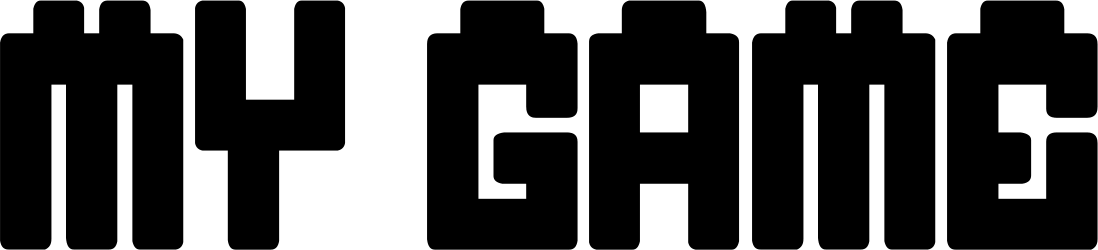
My Game Font
Showcase your typography with a cute arcade font that adds a retro plus confusing feel. My Game has awesome bold characters, similar to small Lego bricks that will gain attention apart from the enjoyable readability they deliver.
This particular 90s cartoon font only provides capitalized A to Z letters as no lowercase letters, numbers, or punctuation are available. The most common places you should consider utilizing My Game are games, books, comics, packaging, posters, or where you wish.